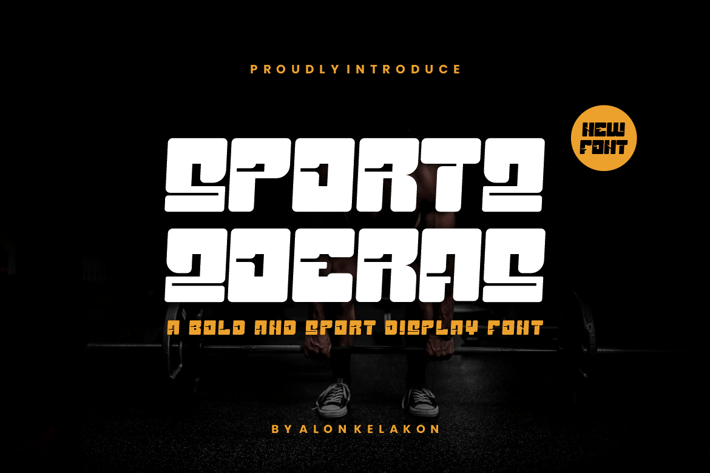
Sportz Zoeras Font
Sportz Zoeras Font Font is unique . Ready to use for your design like labeling, movie sceen, poster, movie title, gigs, album covers, logos, and much more.